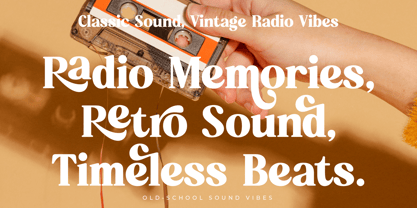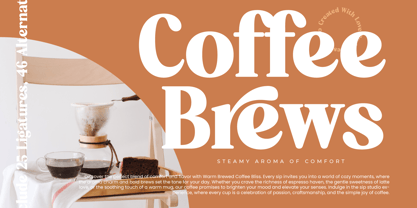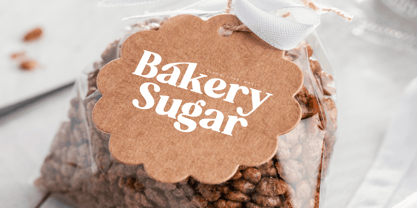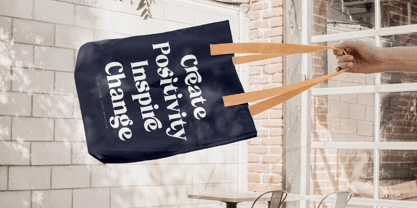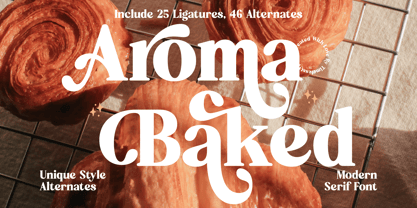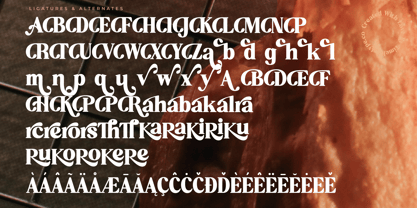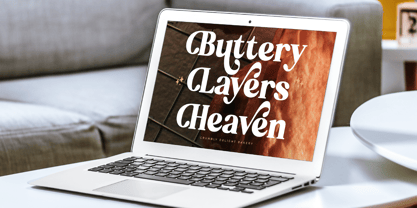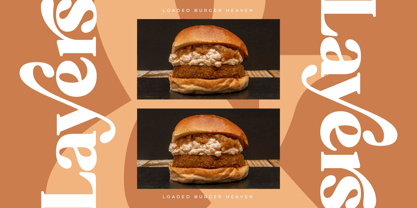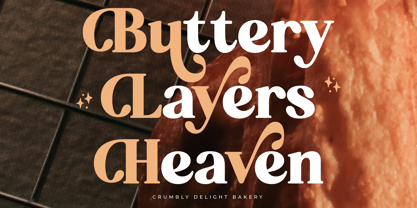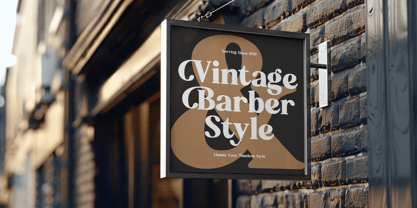
Aroma Baked
by Timelesstype Studio
The Aroma Baked Font Family was designed by Heru Utama Putra and published by Timelesstype Studio. Aroma Baked contains 2 styles and family package options.
Aroma Baked - Modern Serif Font , from Timelesstype, Suitable for any projects such as: logos, branding projects, homeware designs, product packaging, mugs, quotes, posters, shopping bags, t-shirts, book covers, name card, invitation cards, greeting cards, label, photography, watermark, special events, and all your other luxury and beautiful projects that need a Luxury Serif taste.